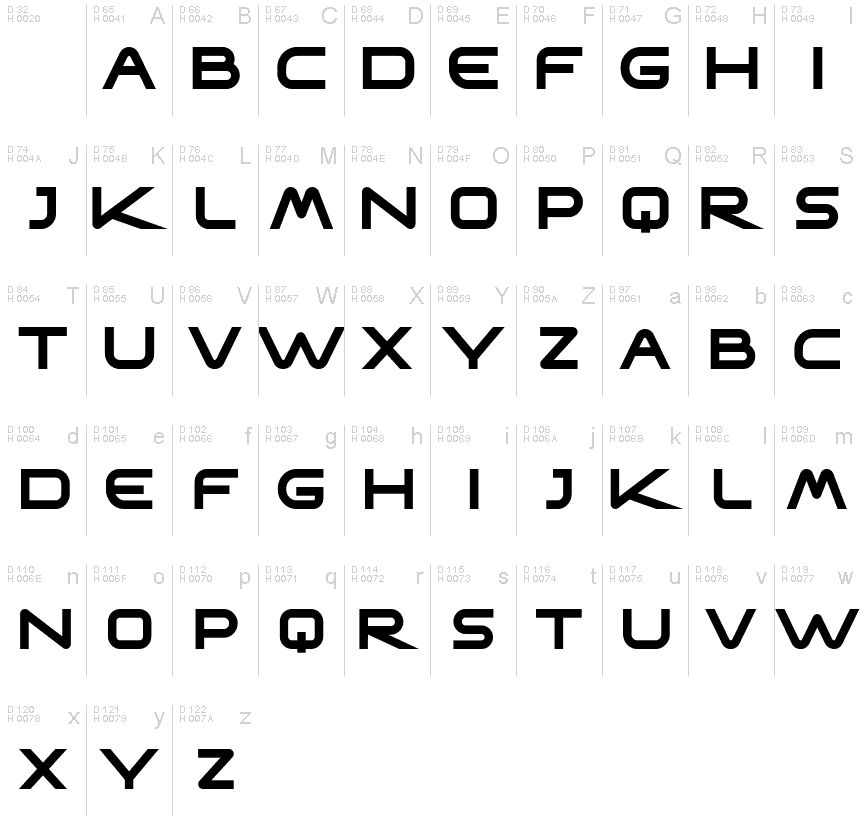
Hacker Fat
Hacker Fat emerges as a bold statement in the Hacker font family, designed by Vladimir Nikolic. Its extra-expanded width and sans serif style coalesce to create an aesthetic that commands attention. With its robust and contemporary character shapes, this typeface exudes confidence and presence that is versatile enough for a variety of creative projects.
The substantial weight of Hacker Fat lends itself perfectly to impactful headlines, poster designs, and any digital or print medium where clarity is paramount. This font's clean lines and solid form not only ensure excellent readability but also contribute to its modern charm. Whether you're aiming for a minimalist look or something more avant-garde, Hacker Fat offers a stylish typographic solution that will elevate your design work with its distinct flair.